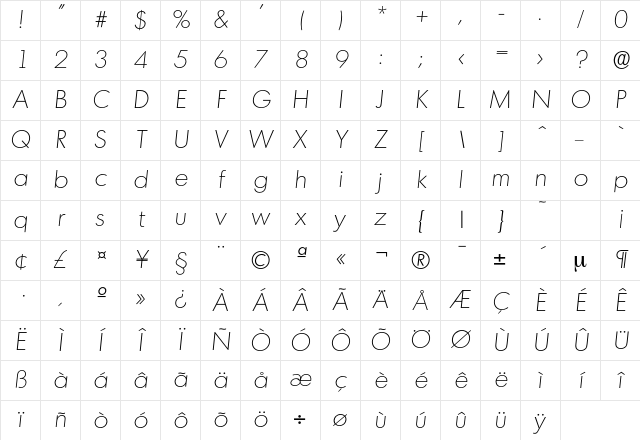
Montreal-XlightIta Regular
Montreal-XlightIta Regular Font Preview
Montreal-XlightIta Regular Uppercase Preview
Montreal-XlightIta Regular Lowercase Preview
Montreal-XlightIta Regular Numeric Preview
Montreal-XlightIta Regular Character Map
Complete Montreal-XlightIta Regular glyph index. Displaying only characters natively supported by Montreal-XlightIta Regular font.
Montreal-XlightIta Regular Character Map
Design Context for Montreal-XlightIta
Montreal-XlightIta is a composed and adaptable typeface that performs quietly and consistently across a wide range of design contexts. Its slender proportions lend an understated elegance to any composition.